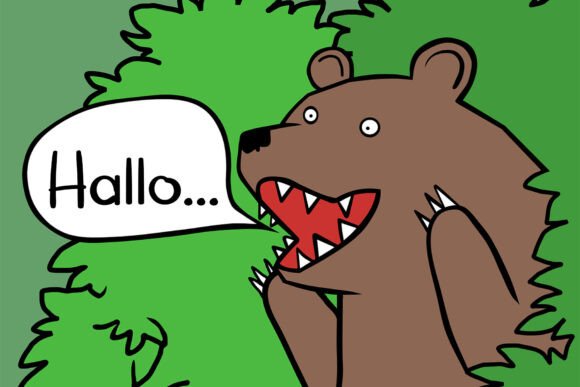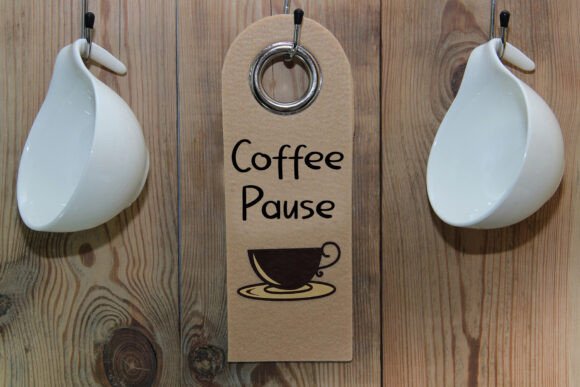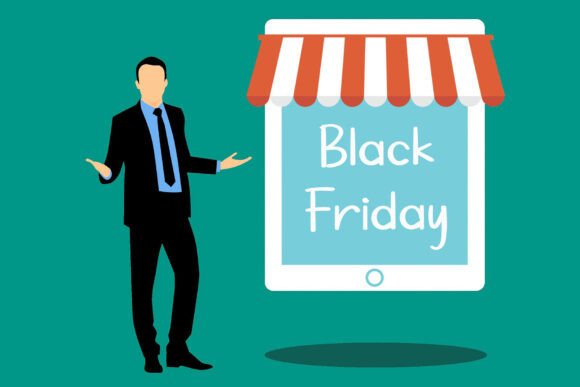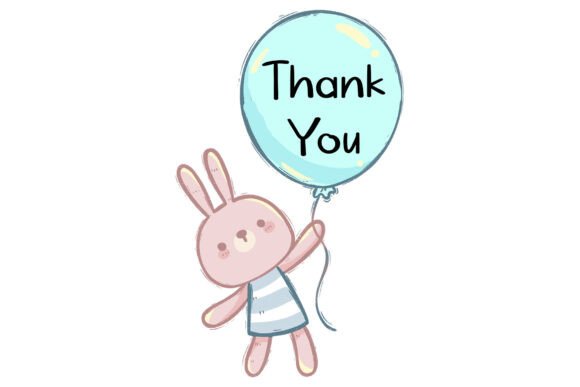
The Butler Font: A Unique and Elegant Addition to Your Design Arsenal
Have you ever been in the middle of a design project, and suddenly, you’re stuck on finding the perfect font? I recall a particularly frustrating experience while working on a wedding invitation card design. The client wanted something elegant, yet modern, and I just couldn’t seem to find the right fit. That’s when I stumbled upon the Butler font, and it completely transformed my design.
A Personal Review of Butler Font
As a designer, I’m always on the lookout for fonts that can elevate my work. Here’s my honest review of the Butler font:
- ✨ Unique and elegant design that’s perfect for projects that require a touch of sophistication
- ✅ Professional hand touch that gives it a personal feel
- 💯 Highly versatile and can be used for various design projects, from wedding invitations to school assignments
- 🎉 Accessible with all glyphs, making it easy to work with
- 🤔 While the font is elegant, it may not be the best fit for very casual or playful designs
- ⚠️ Some users may find the font a bit too ornate for certain projects
The Story Behind Butler Font
The Butler font was designed with the intention of creating a unique and elegant typeface that would cater to designers looking for a professional, yet personal touch. The designer aimed to craft a font that would be versatile and easy to work with, while still maintaining a high level of sophistication.
| Font Name | Butler Font |
| Author | GiaLetter |
| What type of projects is the Butler font best suited for? | The Butler font is perfect for projects that require a touch of elegance and sophistication, such as wedding invitations, formal events, and creative projects. |
| Is the Butler font easy to use? | Yes, the Butler font is designed to be easy to use, with accessible glyphs and OpenType features that make it simple to work with. |